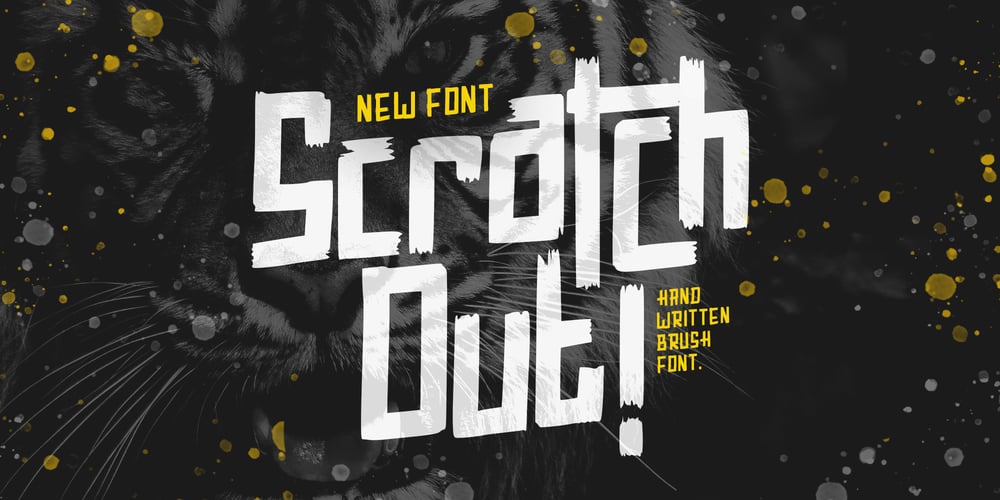
Scratch Out
Scratch Out font
Scratch Out Font Family was designed by Abul Almaududi and published by Pixesia Studio. Scratch Out contains 1 styles and family package options. Introducing Scratch Out – Urban Brush FontScratch Out is an edgy and modern brush font that is perfect for adding a rough, urban look to your designs. The brush strokes give it a handmade, authentic feel that is perfect for streetwear brands, music album covers, posters, and more. With its bold and rough style, Scratch Out is sure to make a statement and catch the eye of your audience. This font is versatile and can be used for a wide range of projects where you want to create a raw and energetic look.FEATURES- Stylistic Alternates- Ligatures- PUA Encoded- Uppercase and Lowercase letters- Numbering and Punctuations- Multilingual Support- Works on PC or Mac- Simple Installation- Support Adobe Illustrator, Adobe Photoshop, Adobe InDesign, also works on Microsoft WordHope you Like it.Thanks.